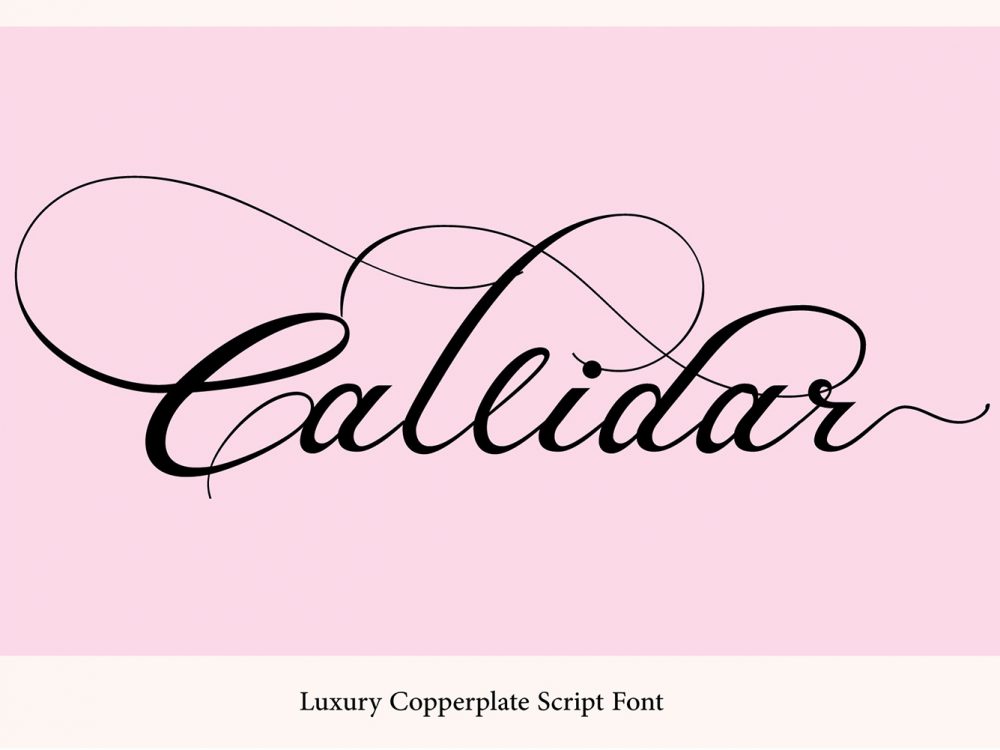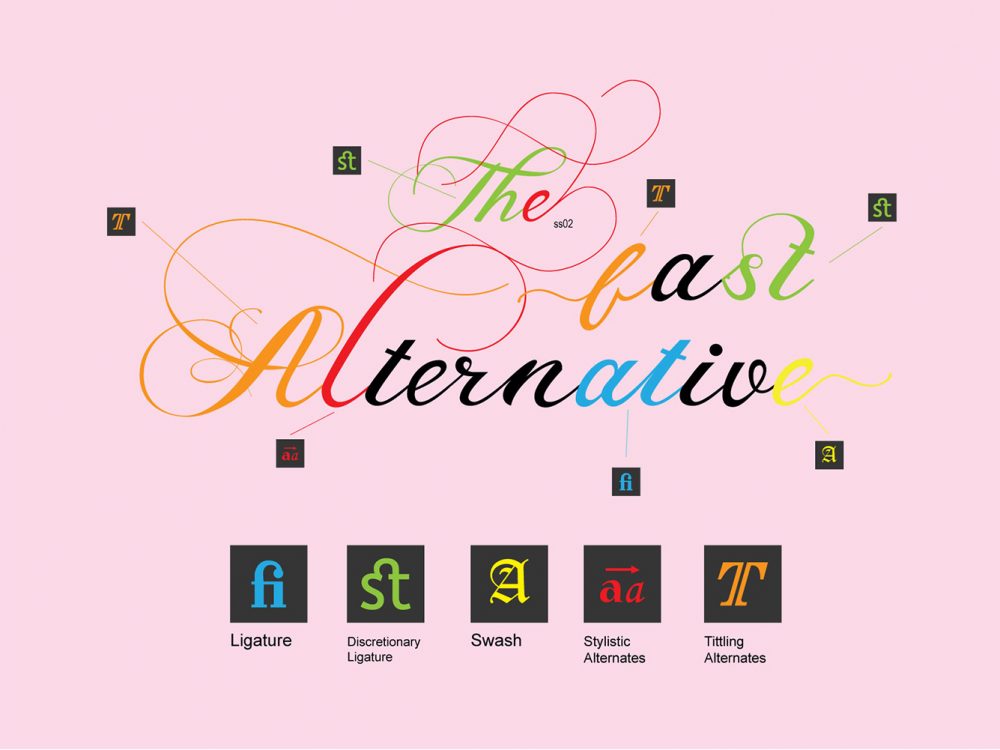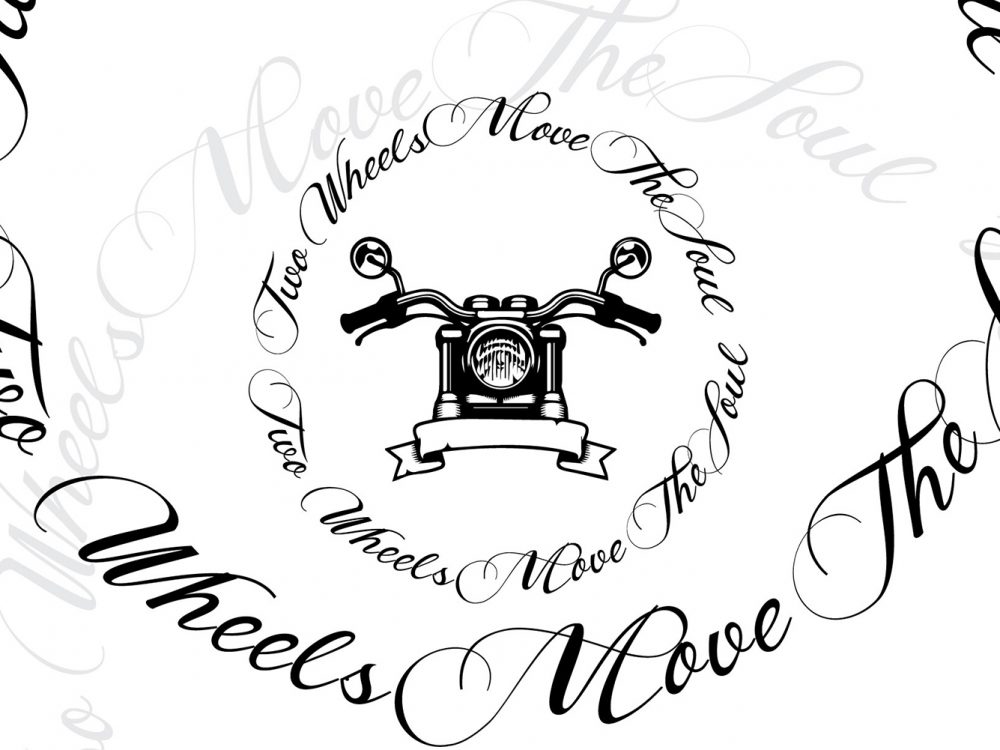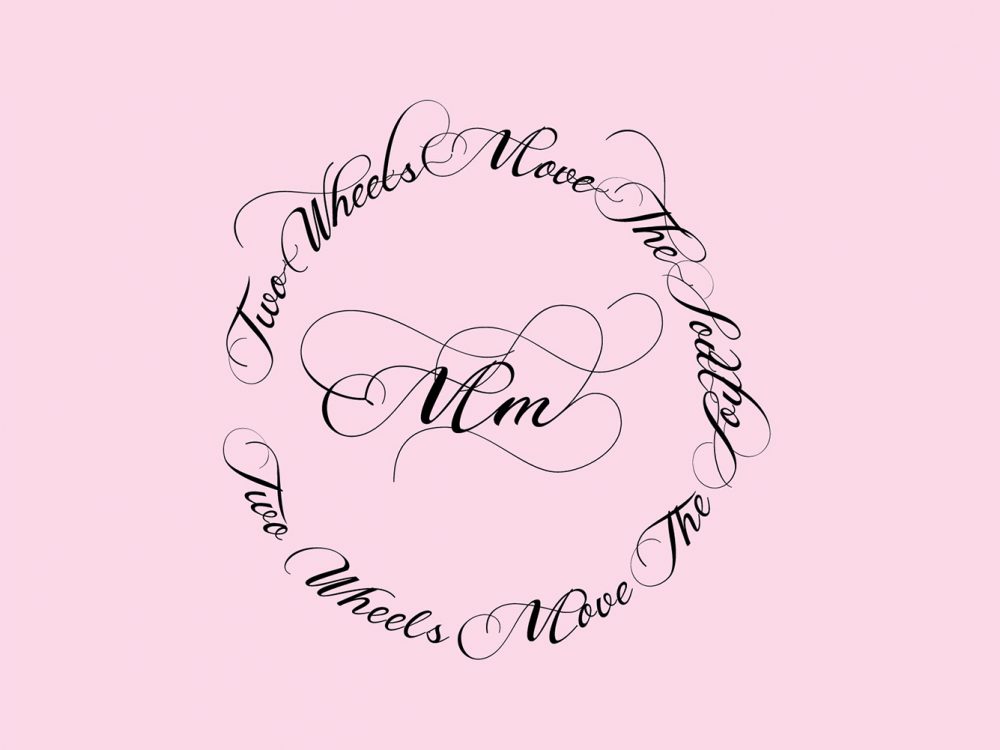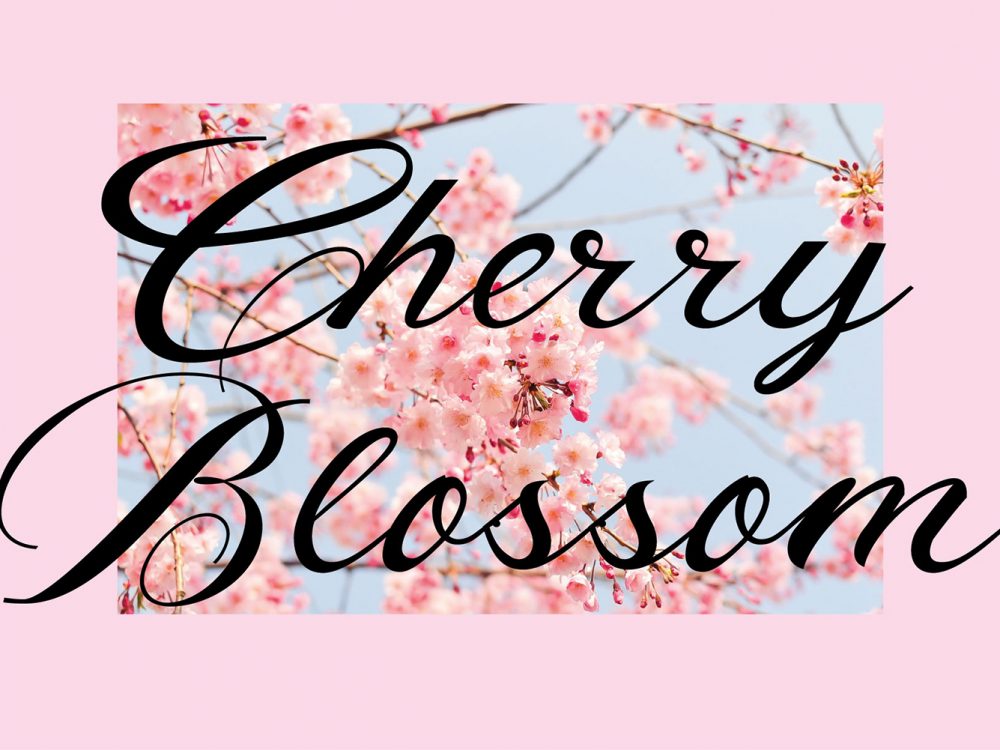
Callidar Free Font
Callidar Free Font is an interesting calligraphic font that features an elegant outline and modern style. Comes with uppercase letters, lowercase letters, alternate lowercase letters, numbers, and punctuation. This font will work very well for many of your design projects that require a scripted font. You can use this font to create memorable posters, wedding invitations, greeting cards, branding, flyers, t-shirt and pillow prints, and more. Improve the quality and increase the popularity of your design projects using this font. If you like it don’t forget to check out the full version.